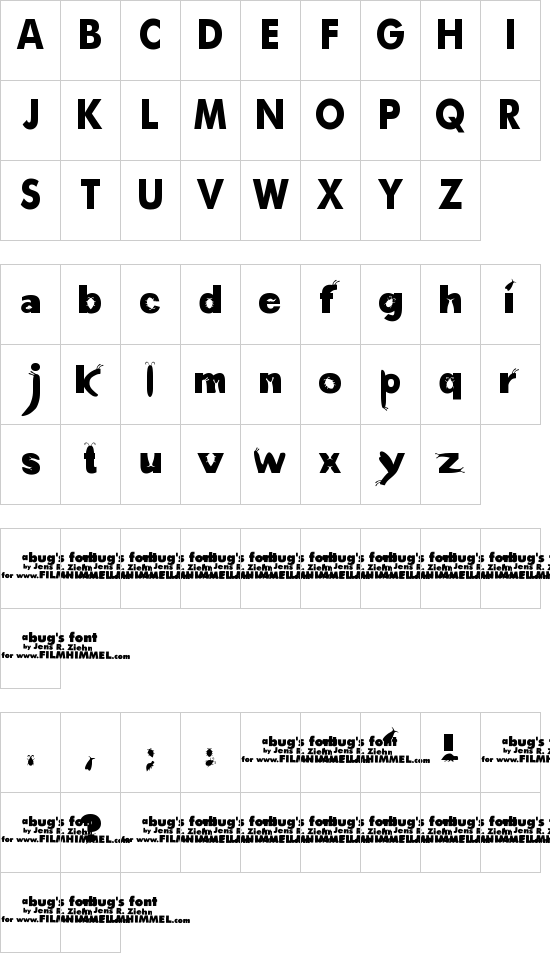
A Bug's Life is a cartoonish sans serif with playful, animated letterforms inspired by family film lettering. The shapes bounce and bulge with a friendly, kid-friendly energy, rounded and lively, the kind of type that looks like it is about to wobble across the screen of an animated feature.
It suits children's books, party invitations, animated-style posters, and cheerful social media graphics where fun is the goal. A Bug's Life is free to download as a TrueType file, and you can preview it with your own text first to see how its bouncy, cartoon letterforms read across a title or short phrase.